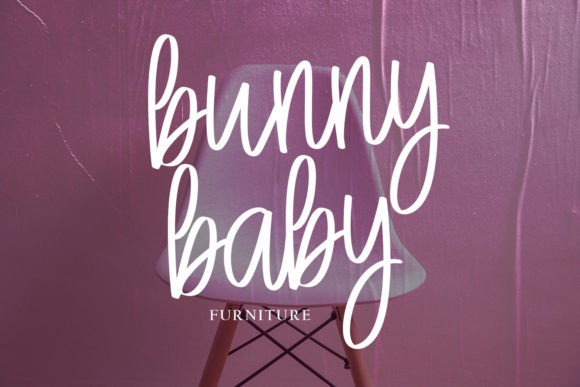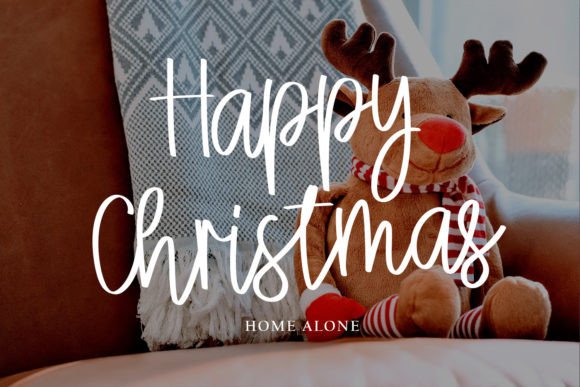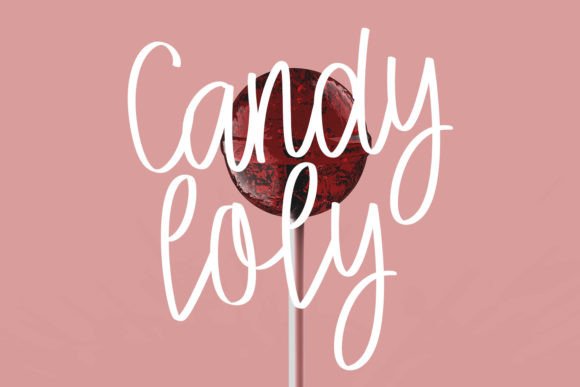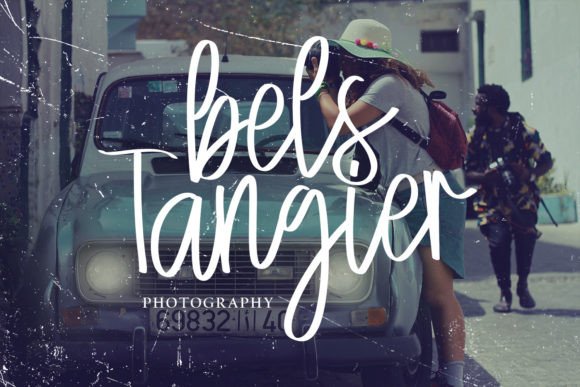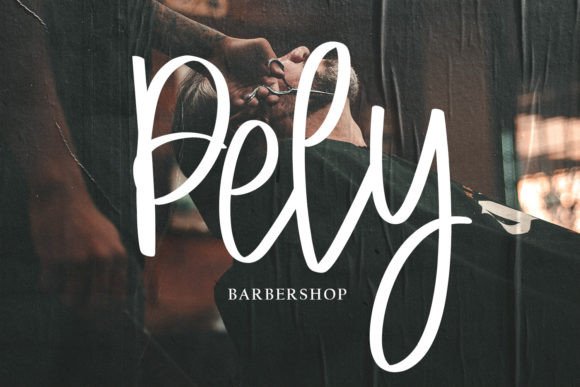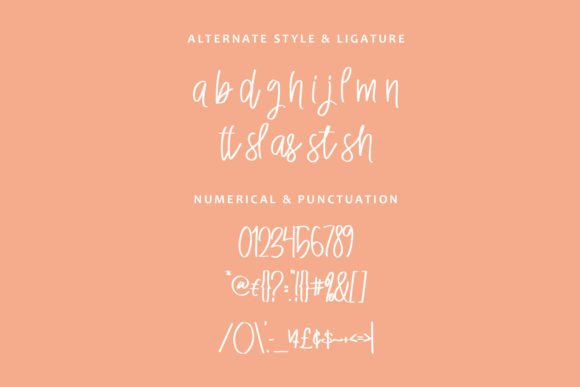
Introducing Cely Meck: The Ultimate Font for Modern Design Needs
In the world of typography, a new font has emerged that is taking the design community by storm. Say hello to Cely Meck, a revolutionary handwritten font that is redefining the way we approach design. With its unique blend of originality and modernity, Cely Meck is set to make all your design needs more attractive and captivating.
The Seductive Curve of Cely Meck
What sets Cely Meck apart from other fonts is its original handwritten curve, which makes it seductive to the wearer. The font’s flowing lines and curves create a sense of elegance and sophistication, making it perfect for designers who want to add a touch of personality to their work. Whether you’re designing a logo, brochure, or social media campaign, Cely Meck’s unique curve is sure to grab attention.
A Versatile Font for All Your Design Needs
Cely Meck is more than just a font – it’s a versatile design tool that can be used in a variety of applications. The font features common characters, including uppercase and lowercase letters, numbers, and punctuation, making it easy to use for a wide range of design projects. Here are just a few examples of how you can use Cely Meck:
- Logos: Create a unique and memorable logo for your brand with Cely Meck’s distinctive curve.
- Social Media Campaigns: Use Cely Meck to add a touch of personality to your social media posts and campaigns.
- Magazine Covers: Make your magazine cover stand out with Cely Meck’s elegant and sophisticated font.
- Brochures: Use Cely Meck to create eye-catching brochures that showcase your brand’s personality.
- T-Shirts: Create custom t-shirts with Cely Meck’s unique font that’s sure to turn heads.
The Power of OpenType Features
Cely Meck also features an open feature that adds to your options for stringing words. This means you can create complex and beautiful typography with ease. The open feature allows you to:
- Alternate Characters: Swap out characters to create unique and varied typography.
- Ligatures: Use ligatures to create a more natural flow of text.
- Stylistic Sets: Create custom stylistic sets to match your brand’s personality.
In conclusion, Cely Meck is a game-changing font that’s set to revolutionize the world of design. With its unique handwritten curve, versatility, and open features, Cely Meck is the perfect font for designers and crafters who want to add a touch of personality to their work. Whether you’re designing a logo, brochure, or social media campaign, Cely Meck is the ultimate font for modern design needs. So why wait? Download Cely Meck today and start creating stunning designs that will leave a lasting impression.